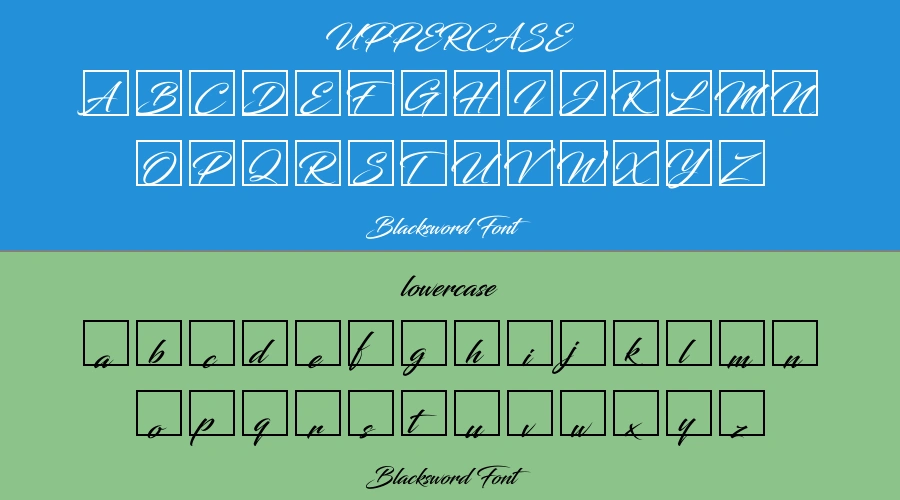
About Blacksword Font
Blacksword Font embodies typographic excellence through its masterful combination of fluid connections and signature style. Created for financial reports, this typeface delivers exceptional consistency and design innovation across all applications. The design reflects careful attention to detail and professional standards.
Advanced capabilities include distinctive balanced proportions and versatile proportional figures, giving designers creative control. When used in specification lists, Blacksword Font exhibits remarkable reliability. The harmonious balance between character width and engineering heritage sets this typeface apart.